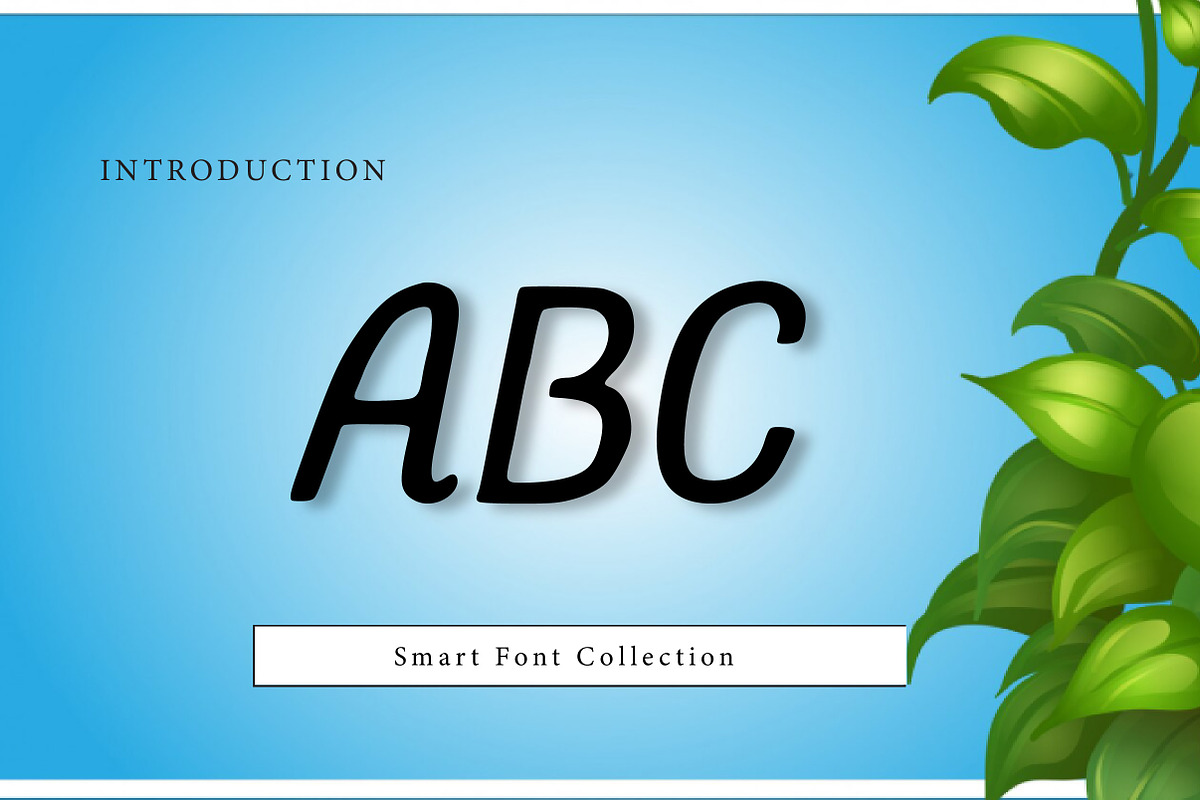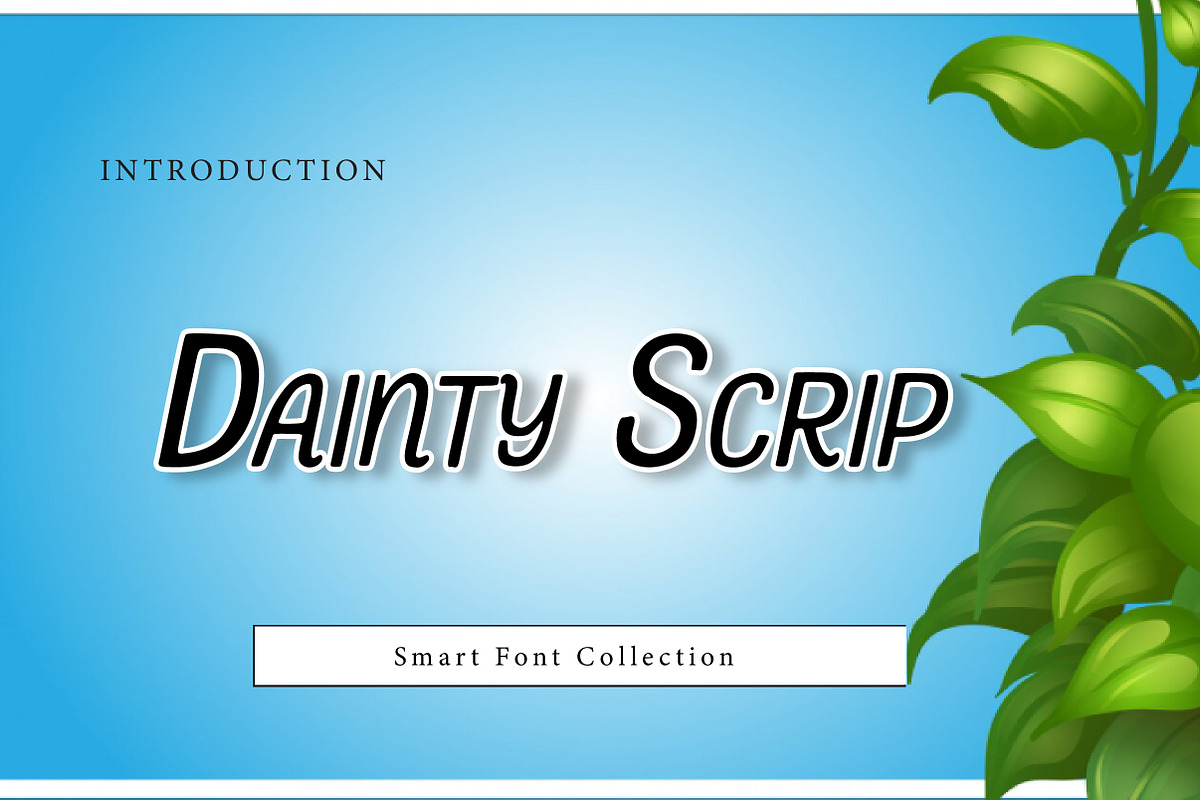
Dainty Scrip
Dainty Scrip is a delicate and elegant handwritten script font designed with smooth strokes, graceful curves, and a light romantic feel. This font is perfect for wedding invitations, logos, branding, quotes, social media graphics, beauty packaging, boutique labels, and feminine typography projects. Dainty Scrip brings a soft, classy, and stylish personality to any design, making it ideal for modern calligraphy layouts and luxury-inspired creative work.